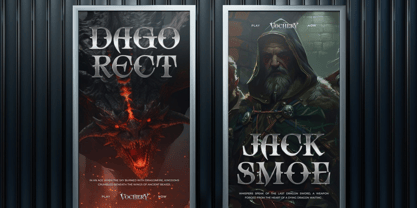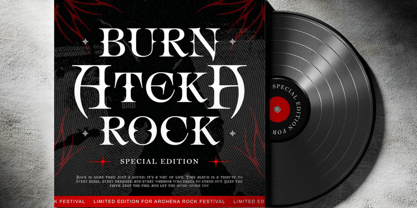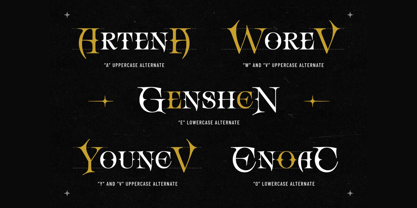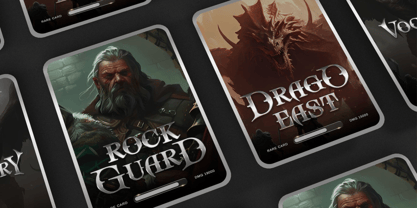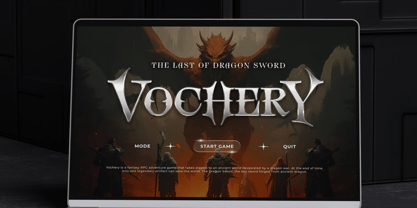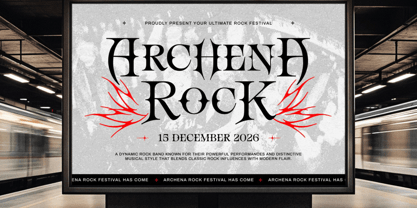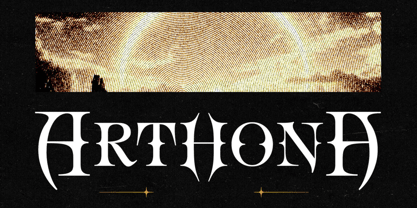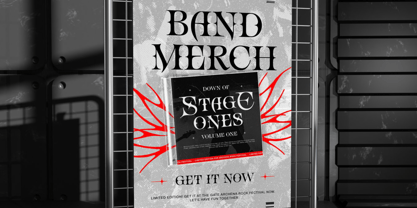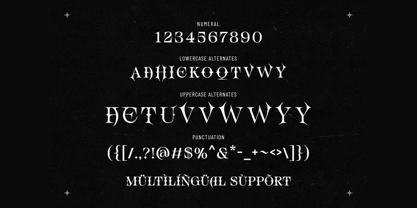
Atherur
The Atherur Font Family was designed by Hasnat Khan and published by Hasnat Studio. Atherur contains 1 styles. More about this family
Atherur is a bold fantasy serif display font with deep gothic and medieval roots. Designed with sharp serifs, dramatic curves, and enchanting letterforms, it captures the essence of old-world mysticism and modern fantasy. Ideal for projects that demand a powerful, immersive aesthetic, Atherur evokes the atmosphere of ancient legends, mythical realms, and epic storytelling.
Whether you're working on a dark fantasy novel cover, RPG video game UI, heavy metal album artwork, or a medieval-themed event poster, Atherur brings gravitas and magic to your typography.
✦ Font Features:
• Distinct Gothic Serif Style
• Sharp Edges & Dramatic Curves
• Alternate Characters & Ligatures
• Uppercase & Lowercase Letters
• Multilingual Language Support
• Highly Stylized Fantasy Look
✦ Perfect For:
• Fantasy & Medieval Book Covers
• Video Game Titles & UI Design
• Gothic Music & Metal Band Logos
• Dark-Themed Posters & Event Graphics
• RPG Card Games & Character Branding
• Movie Titles & YouTube Thumbnails
• D&D Campaign Materials & Custom Maps